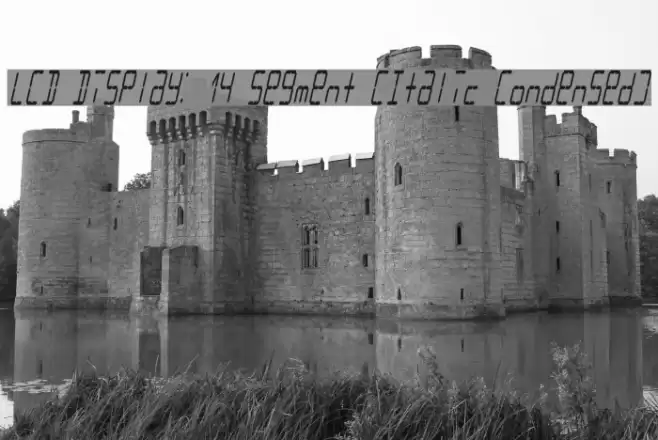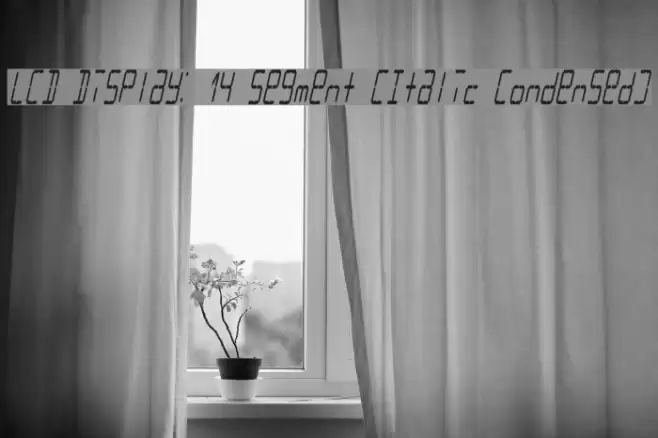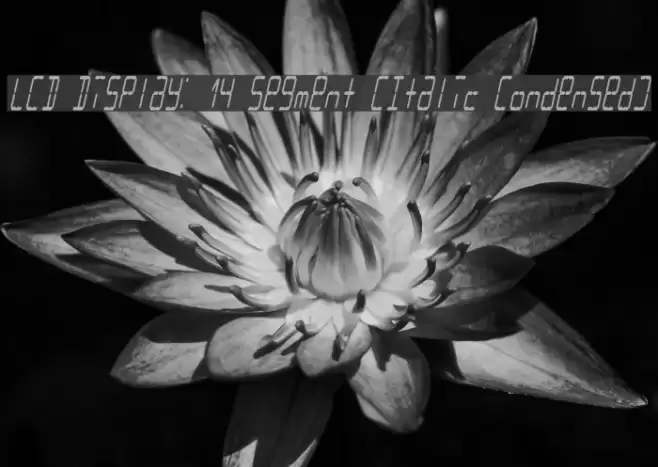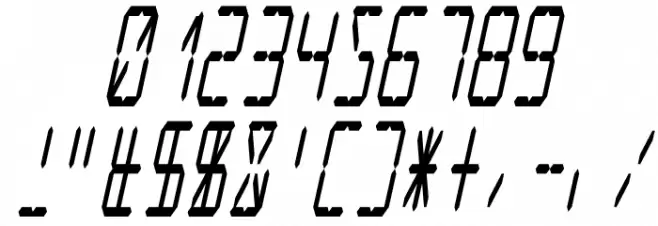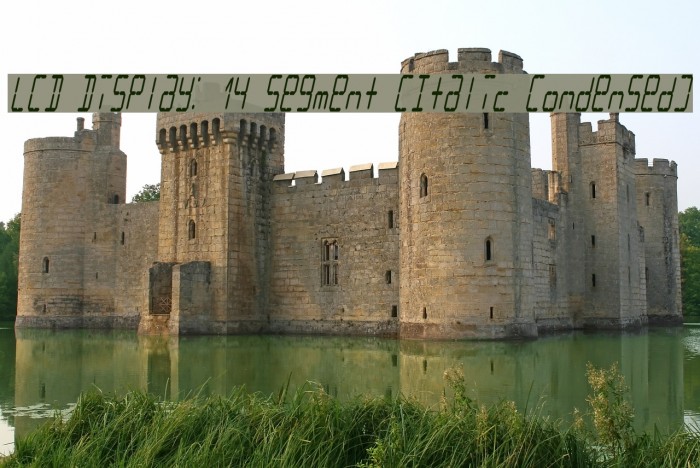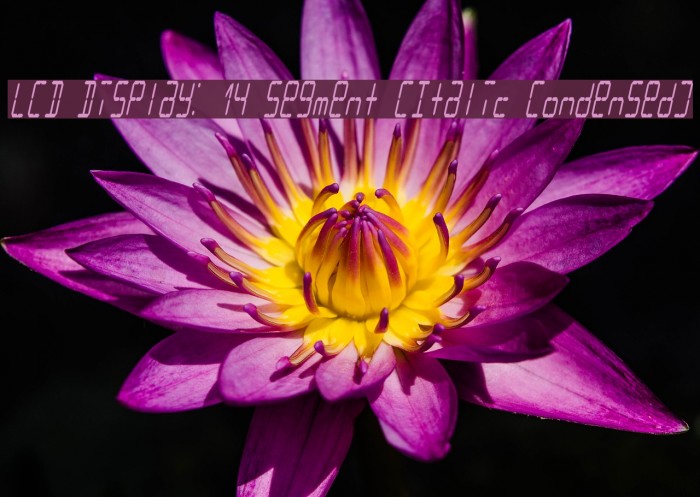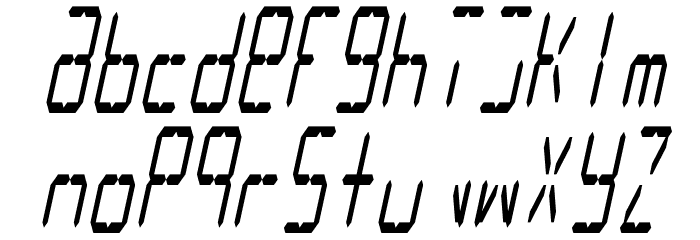
LCD Display: 14 Segment (Italic Condensed) Font
LCD Display: 14 Segment (Italic Condensed) Description
This font features a distinctive 14-segment display style, reminiscent of digital clocks and calculators. The characters are italicized, giving them a dynamic and forward-leaning appearance. The condensed width of the letters allows for efficient use of space, making it ideal for displays where space is limited. Each character is constructed with a series of straight lines and angles, creating a geometric and technical aesthetic. The font maintains a consistent stroke width throughout, contributing to its modern and digital feel. The uppercase and lowercase letters, as well as numbers and special characters, all adhere to this segmented, angular design, ensuring uniformity across the typeface.
A 14-segment, italic, condensed font with a digital, geometric style from Uncategorized fonts.
- Proposed Projects: Ideal for digital displays, tech-themed designs, and modern branding projects.
- Use Case: Headlines, Digital displays, Tech interfaces